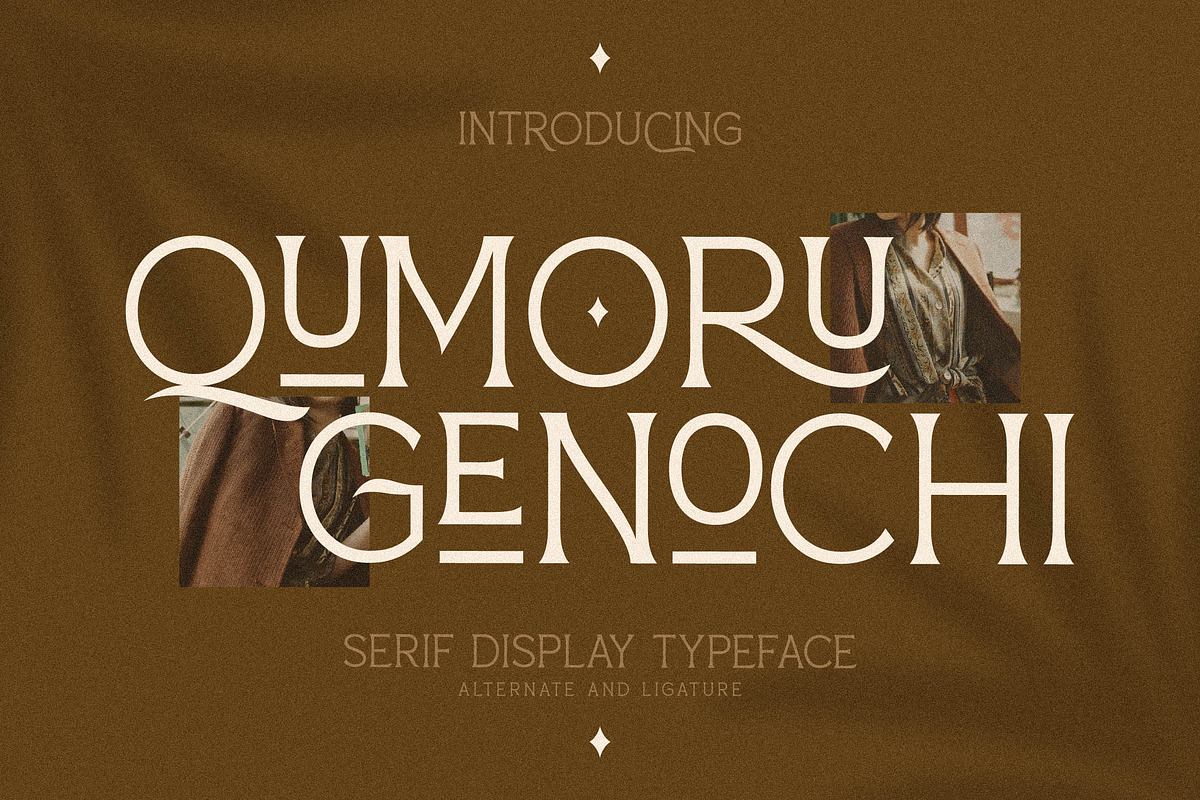
Qumoru Genochi Serif Display Font Free Download is a bold and artistic typeface that blends traditional serif elegance with modern display aesthetics. Designed for standout headlines, logos, packaging, and editorial layouts, this font exudes creativity and sophistication. Its high contrast strokes and unique curves make it ideal for designers seeking something truly distinctive.
Bring a unique voice to your designs with this unforgettable serif display font.